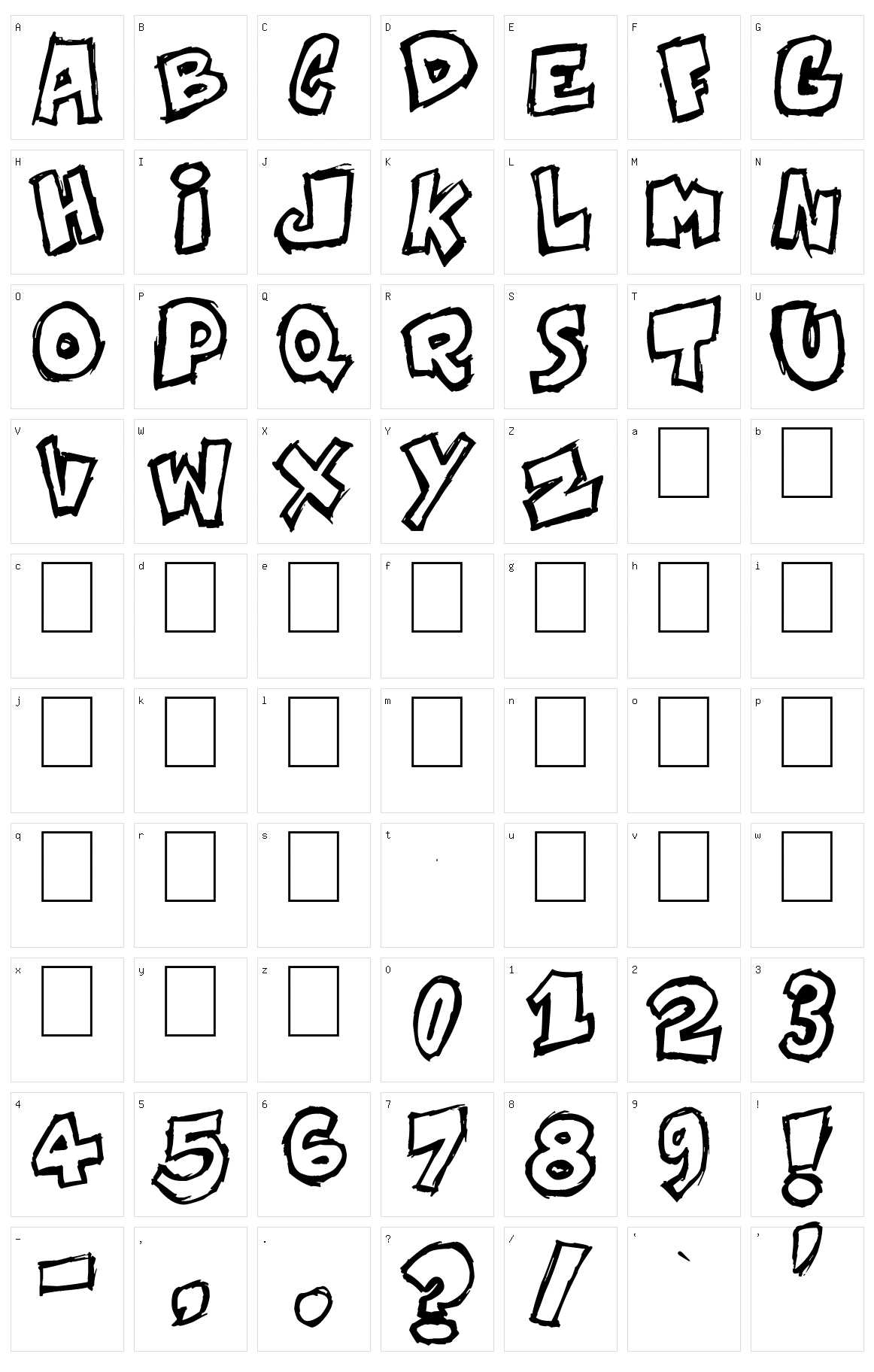
The free font Komikoz is carefully designed by imagex, showcasing a thoughtful balance of creativity and usability and falls under the Cartoon font style. When you download the ZIP file, it contains only 18.16 KB of font files, making it lightweight and quick to download. Please review the license details below to understand permitted usage and distribution rights. If license information is not available, we recommend using this font for personal projects only or contacting the author directly for commercial usage permissions.